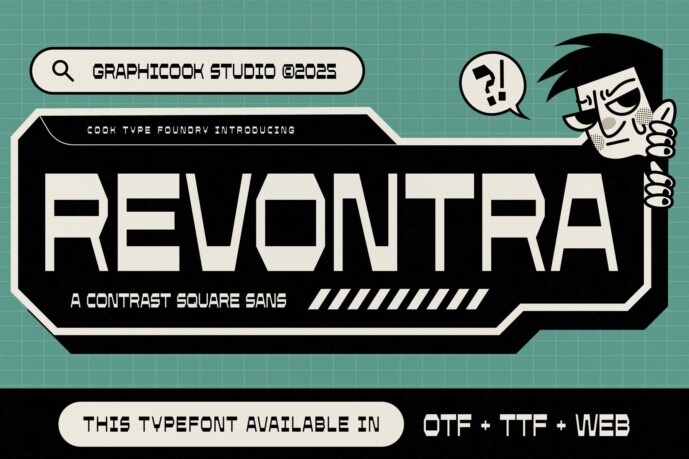
Revontra Font
Designer: graphicook
Revontra is an experimental font featuring bold, distinctive letterforms that convey a mathematical and futuristic vibe. Perfect for cyberpunk or futuristic design projects